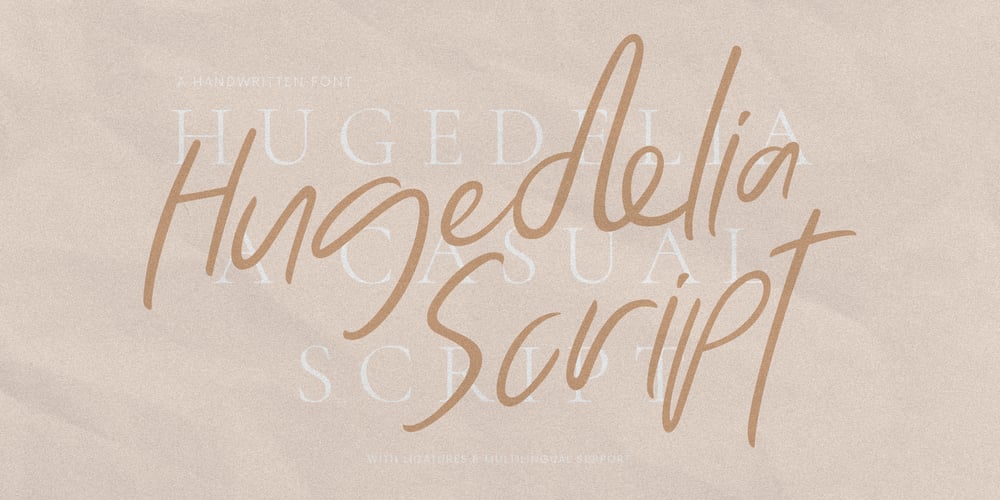
Hugedelia Font Family was designed by Gha Arizal and published by Invasi Studio. Hugedelia contains 1 styles and family package options. This modern handwritten brush script is stylish and fresh. Featuring a touch of class and a fabulous brush style. It has a huge and sophisticated look, so we named it Hugedelia. The font offers tons of ligatures and multi-language support, which adds more naturalness to the application.